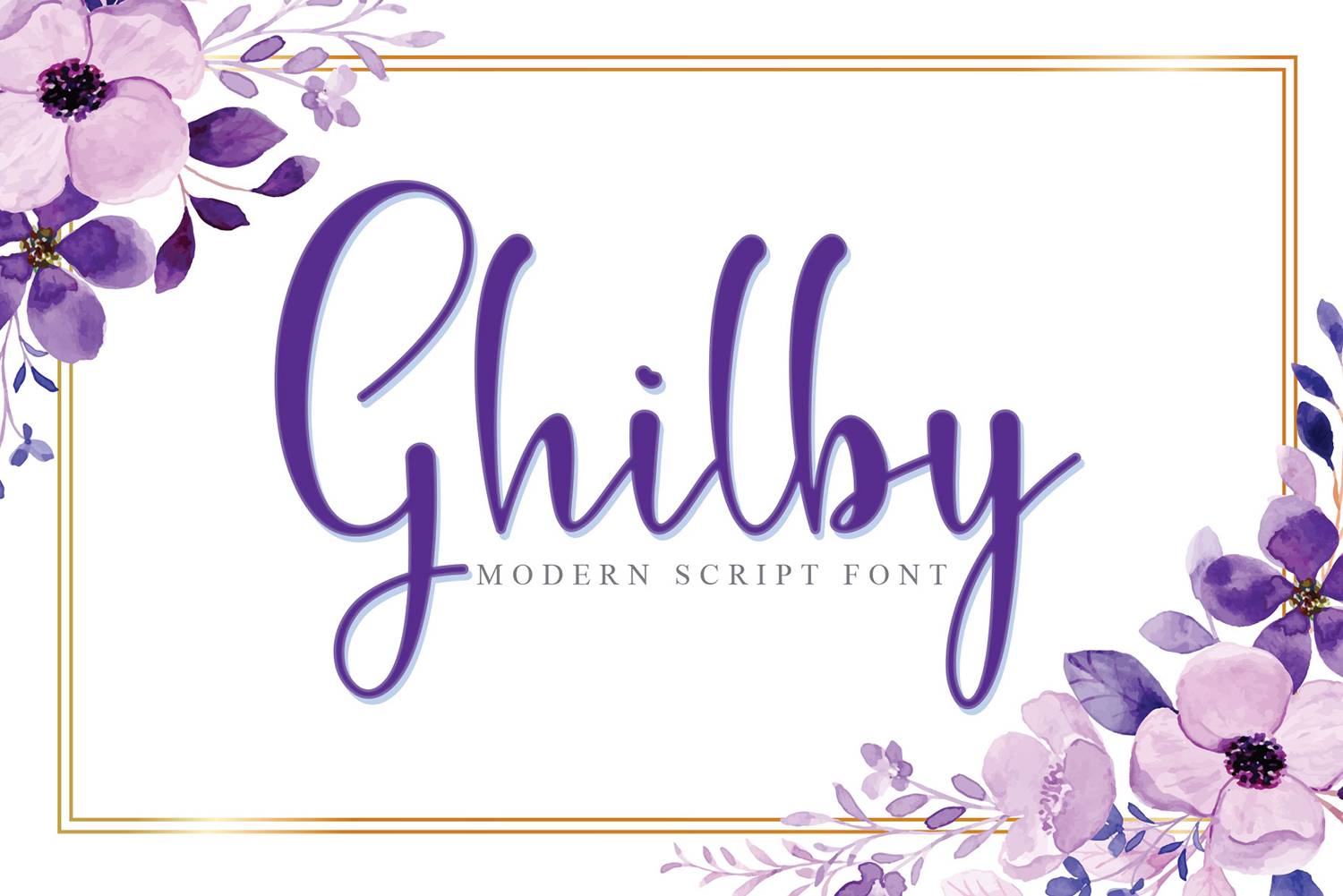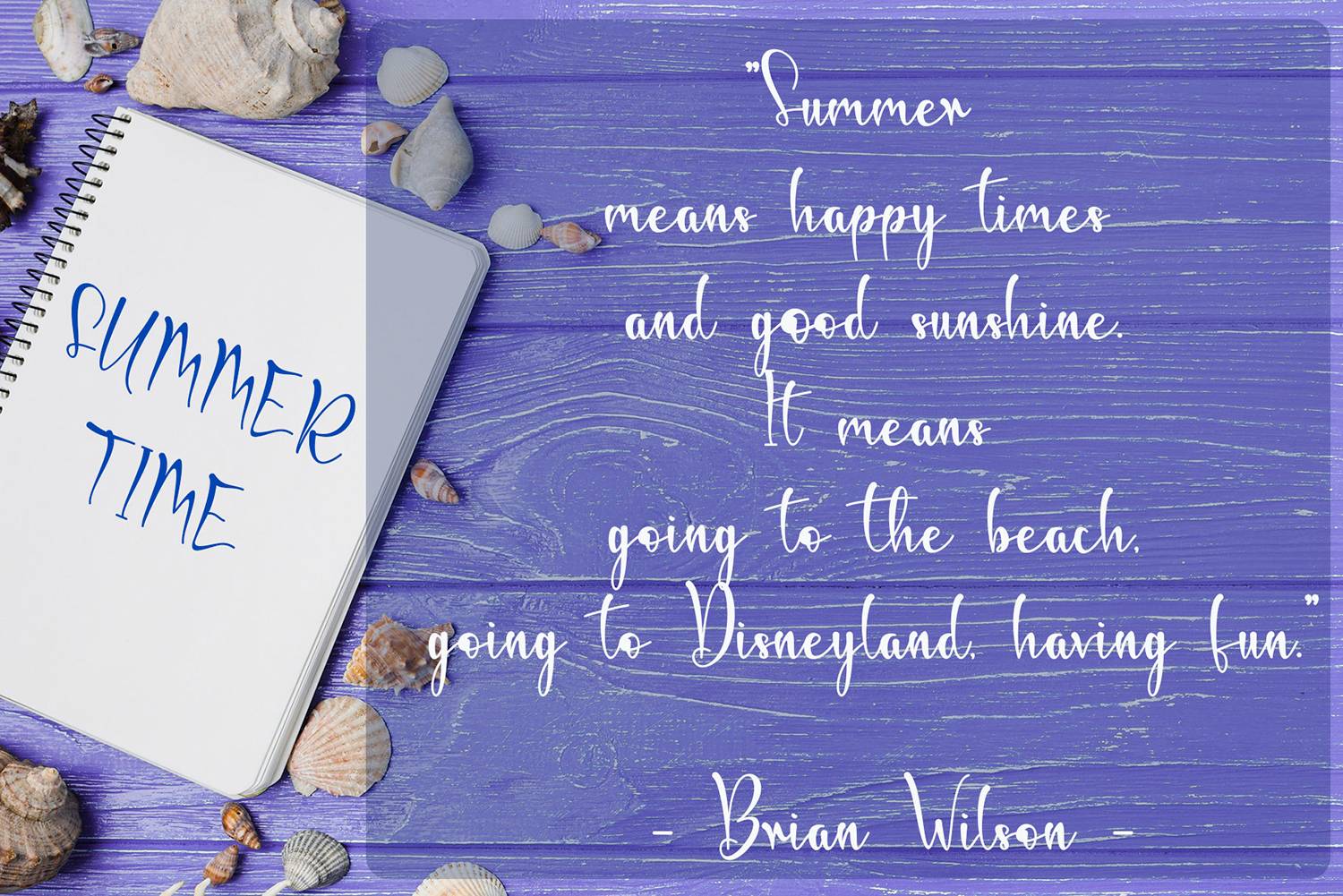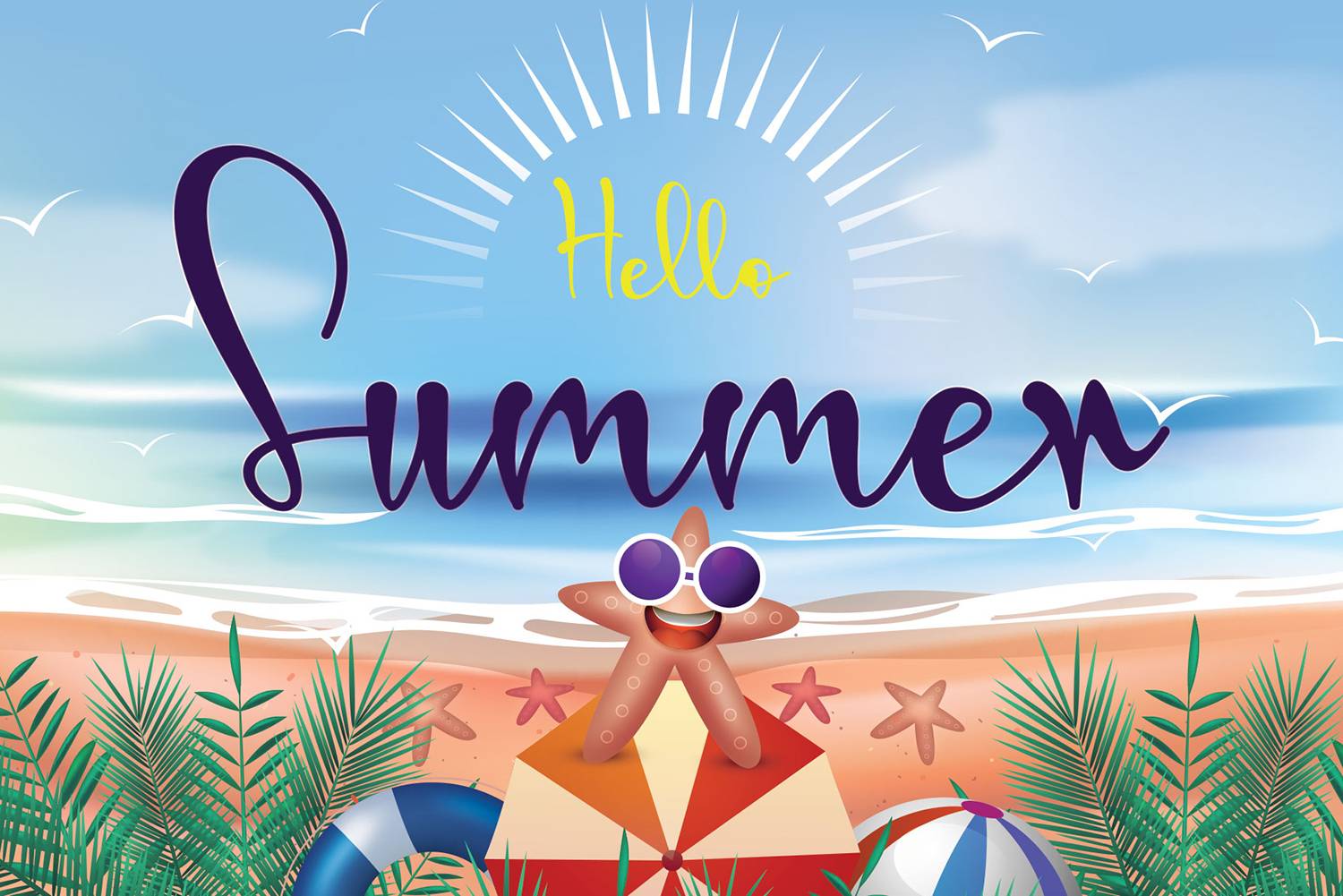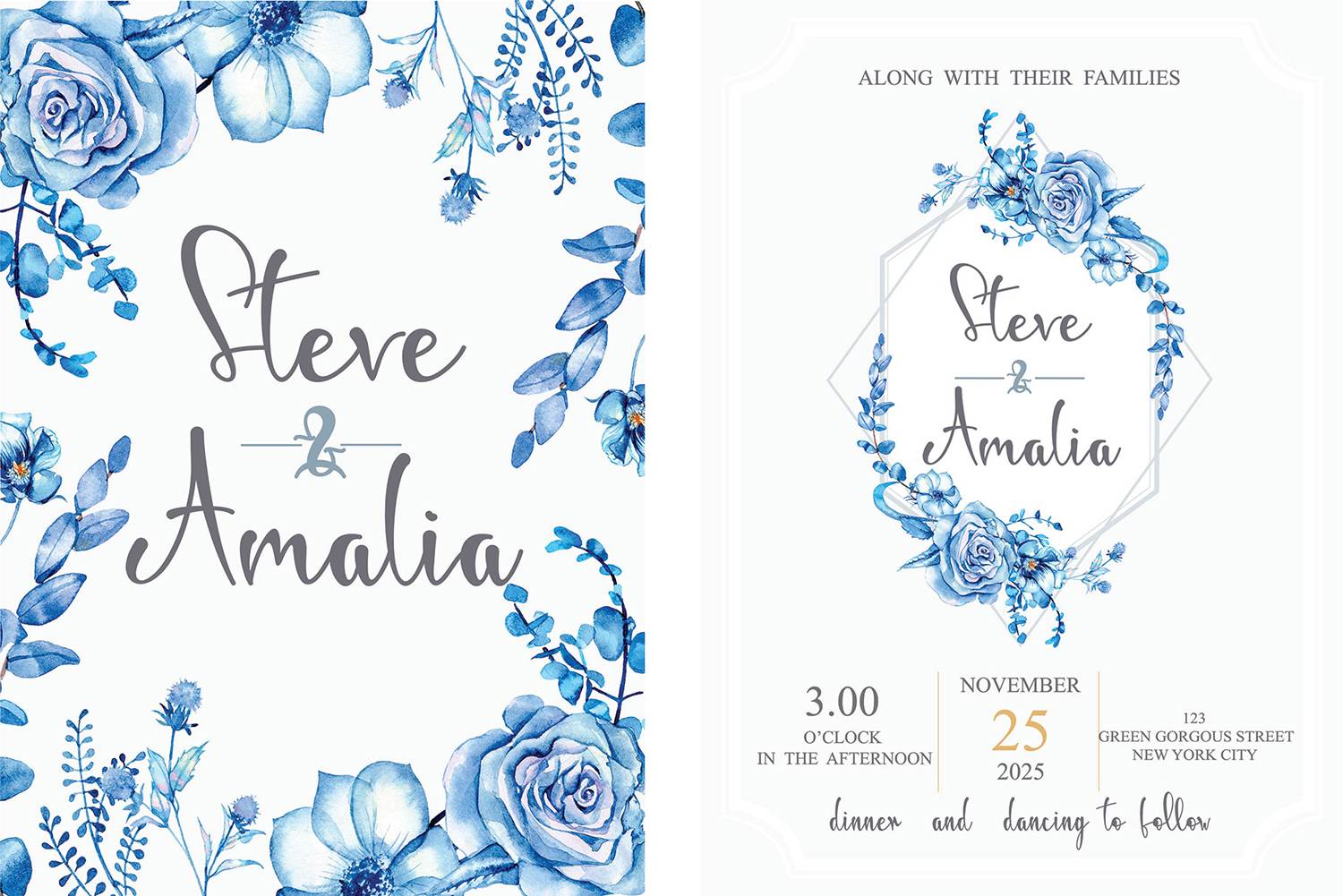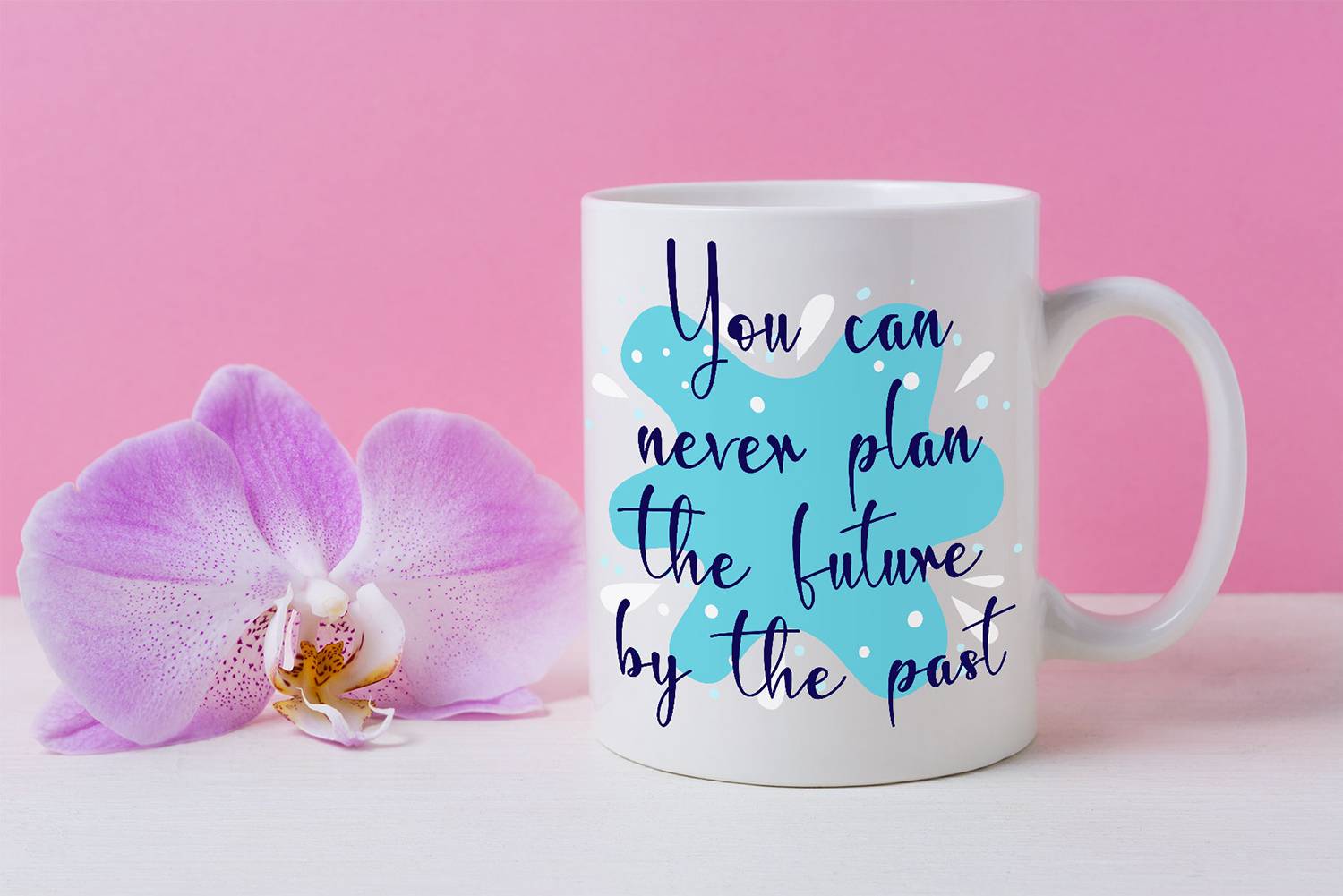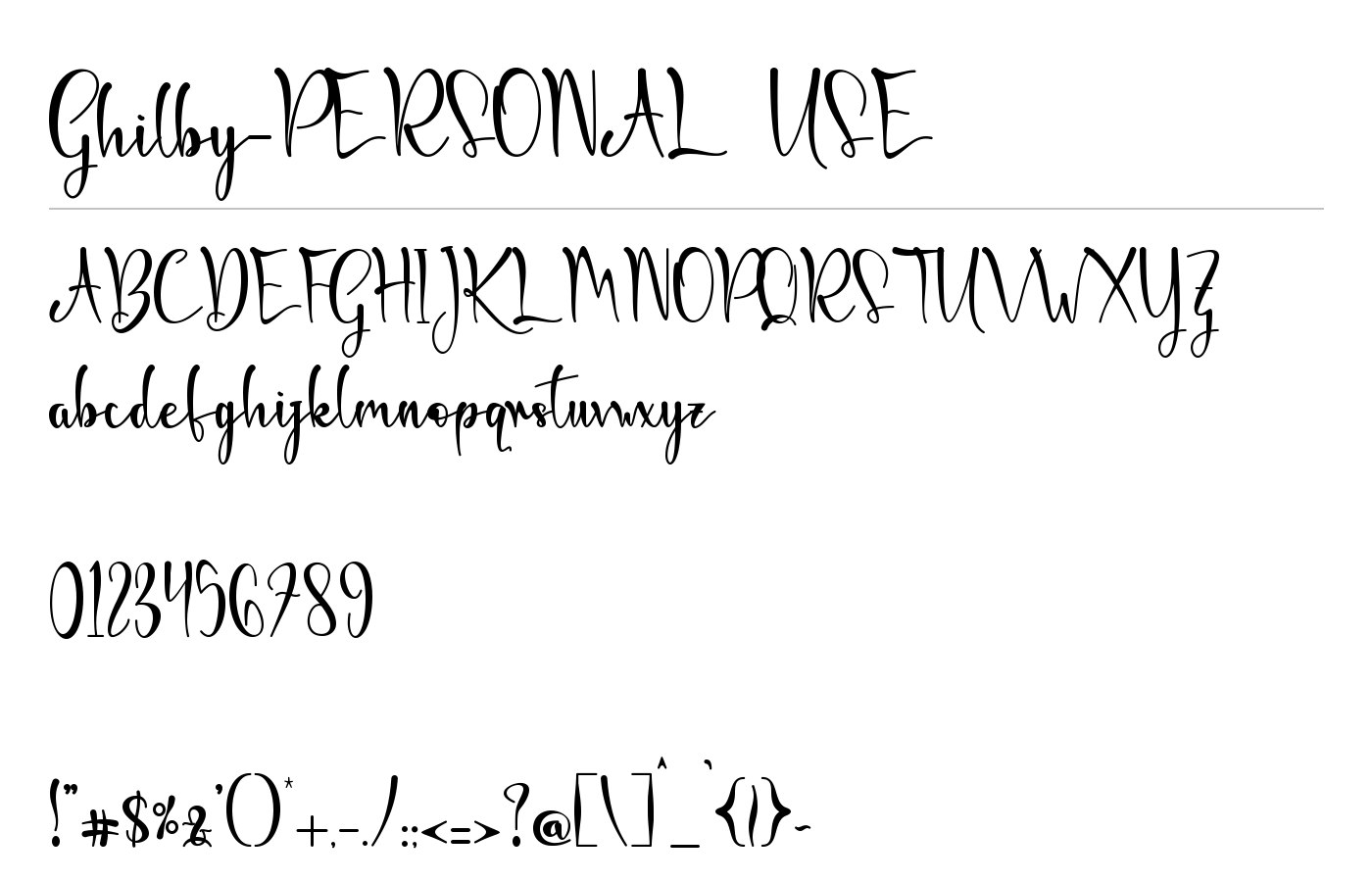
Ghilby is a playful, handwritten script font characterized by its tall, narrow letterforms and lively, irregular strokes that give it a casual and whimsical feel. Its delicate lines and unique, flowing shapes make it ideal for creative projects, such as invitations, personal branding, and fun packaging, where an informal and charming personality is desired. This font works best in display use, capturing attention with its distinctive, friendly style.
| Font family | Ghilby Font |
| Release date | 2021-06-20 |
| Designer | Arkrist Letter |